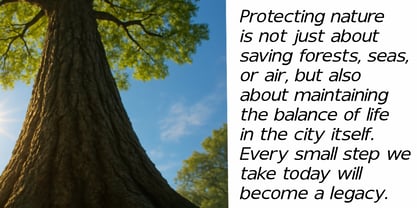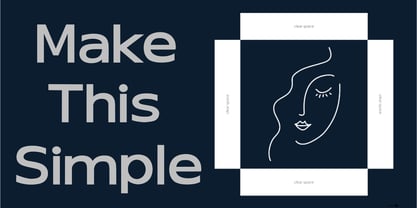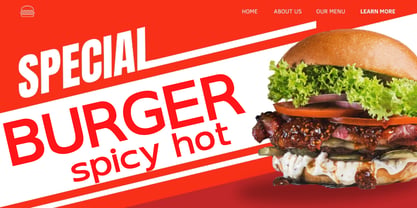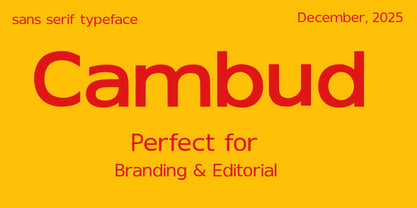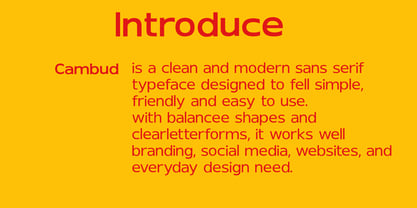
Cambud
von Valorix Studio
Die Schriftfamilie Cambud wurde von Erick Rismawan Valorix entworfen und von Valorix Studio veröffentlicht. Cambud enthält 6 Stile und Familienpaketoptionen. Mehr über diese Familie
Cambud is a modern sans serif typeface designed with clarity, balance, and versatility at its core. Its clean structure and confident proportions make Cambud feel solid yet approachable, suitable for both professional and contemporary design needs. Built with smooth curves and controlled strokes, Cambud maintains excellent readability across sizes. From sharp UI interfaces and business branding to editorial layouts and digital products, Cambud adapts effortlessly without losing its character. With multiple weights and carefully crafted styles, Cambud offers flexible typographic hierarchy while keeping a consistent visual rhythm. It works beautifully for logos, headlines, web design, mobile apps, presentations, and corporate identities. Cambud is designed for designers who value simplicity with purpose. Minimal, functional, and reliable, it brings a calm, modern voice to any visual communication.
Designer: Erick Rismawan Valorix
Foundry: Valorix Studio
Valorix Studio is an independent type foundry specializing in creating display and decorative typefaces with a modern and distinctive character. We craft a wide range of fonts designed to emphasize strong visual identity and creative expression. Each typeface is developed with attention to detail, balance, and aesthetic value—making it an ideal choice for branding, posters, packaging, and other creative projects that demand a bold and unique touch.